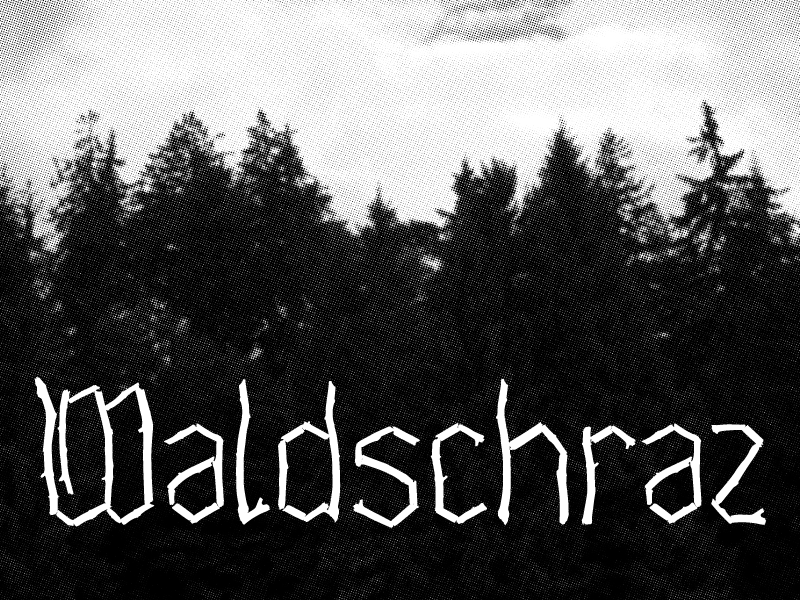
Preview and download Waldschraz Font. Created by Fabian Kirst in Gothic Various styles with Free for personal use license.
Note by Fabian Kirst | |
100% HANDMADE - with broken branches A blackletter font that comes directly out of the wood. |